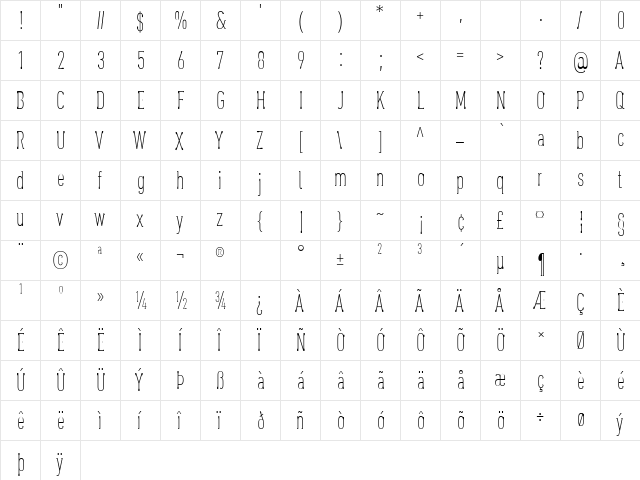
Oaxaque?all Tall Condensed
| Foundry | deFharo |
| Designer | Fernando Haro |
Design Context for Oaxaque񡠔?all Typeface
Oaxaque񡠔?all offers clean, dependable letterforms without strong stylistic allegiance, making it a practical choice for designers who need flexibility. The condensed width makes it efficient for tight spaces without sacrificing legibility.